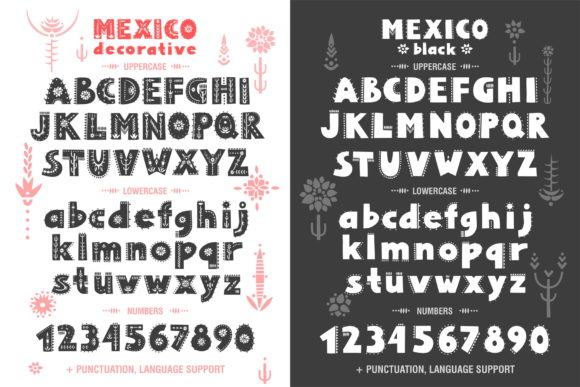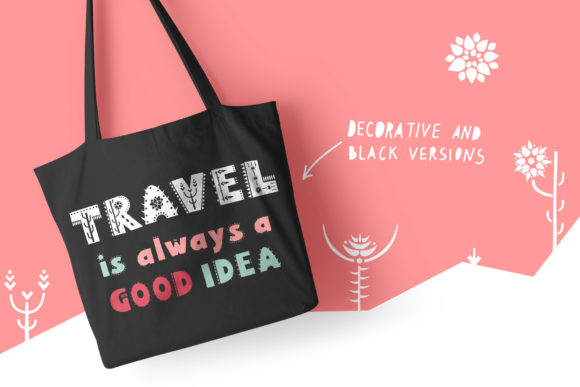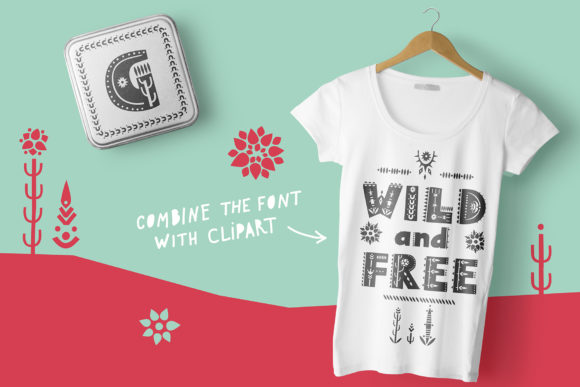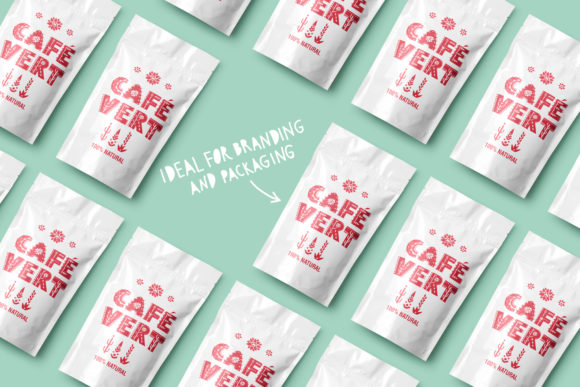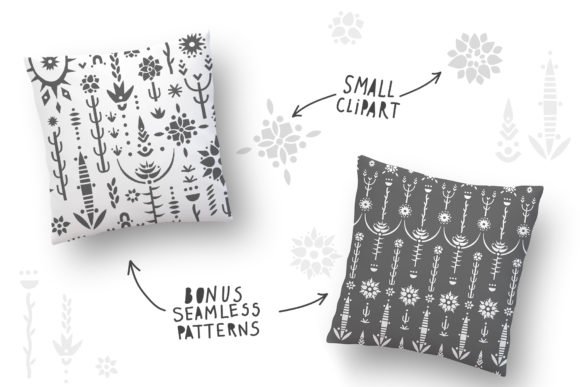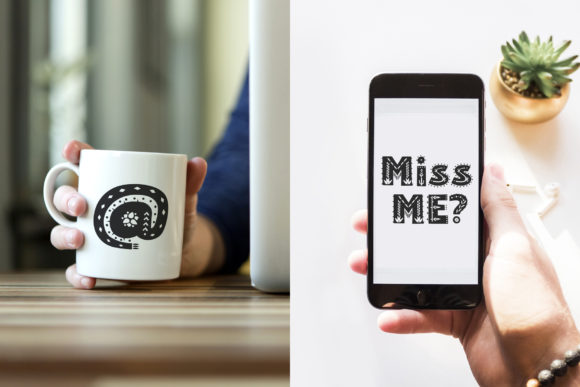
Introduction to Mexico Duo Font
Have you ever been stuck on a creative project, desperately searching for the perfect design element to bring it to life? You know, that one thing that makes your vision pop and leaves a lasting impression on your audience? For designers like us, it’s a familiar struggle. But what if I told you there’s a solution that’s not only free to download but also packed with fun and personality? Enter the Mexico Duo Font – a vibrant, high-quality font family that’s sure to add a playful twist to your designs.
With its regular and black versions, the Mexico Duo Font offers endless possibilities for creative expression. Plus, as a bonus, you’ll get access to a set of fun cliparts that can be used to create your own unique designs. Whether you’re working on a project that requires a fun, lighthearted feel or something more sophisticated, this design resource is sure to deliver.
Key Features of Mexico Duo Font
- Unique Design: Mexico Duo Font offers a distinctive and modern design, making it an ideal choice for creative projects requiring a touch of Mexican flair.
- Design Versatility: Mexico Duo Font is suitable for a wide range of creative projects, from logos and branding to packaging and advertising materials.
Honest Review: Mexico Duo Font
As a designer, I’m always on the lookout for high-quality design resources to elevate my creative projects. The Mexico Duo Font caught my attention with its unique blend of traditional and modern elements.
- The font’s bold and playful style is perfect for adding a touch of Mexican flair to your designs.
- The font may not be suitable for all design styles, particularly those that require a more minimalist or sophisticated look.
- The font’s bold style may be overwhelming for small-scale designs or text.
Overall, I think the Mexico Duo Font is a great addition to any designer’s toolkit. Its unique style and high quality make it a valuable resource for creative projects. While it may have some limitations, it’s definitely worth checking out for designers looking to add a bit of Mexican flair to their work.
The Mexico Duo Font is perfect for creative projects such as branding, packaging, and advertising. Its unique design and transparent background make it ideal for use in logos, icons, and other visual elements.